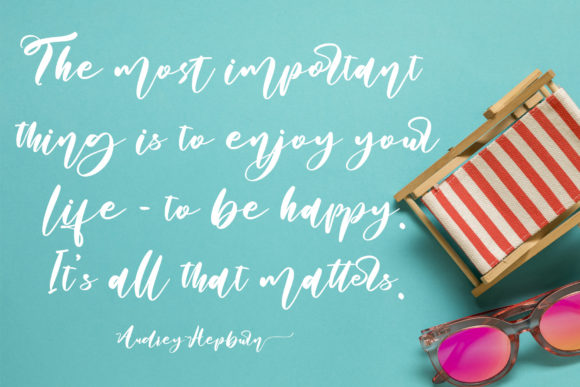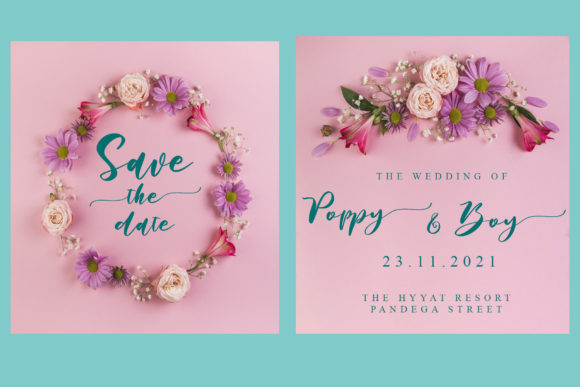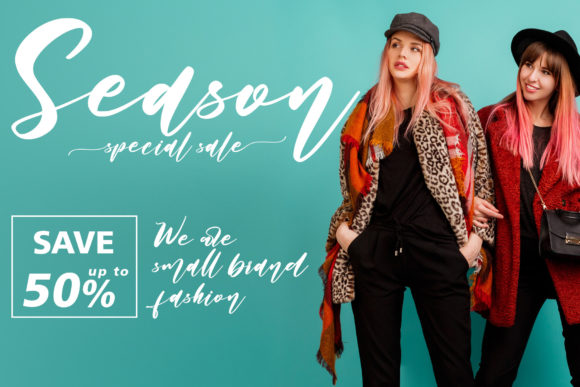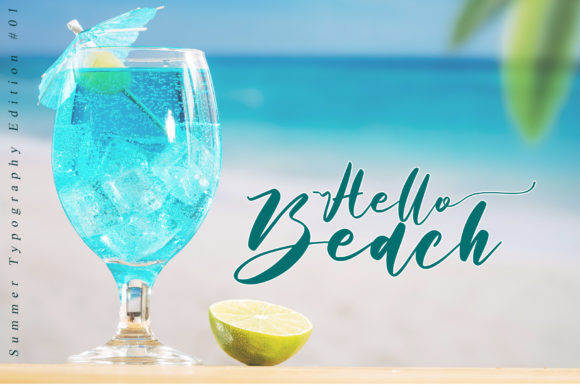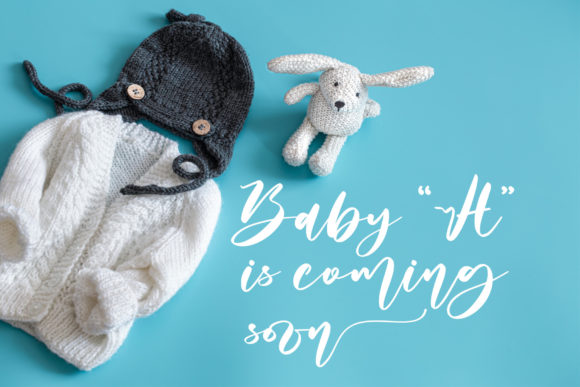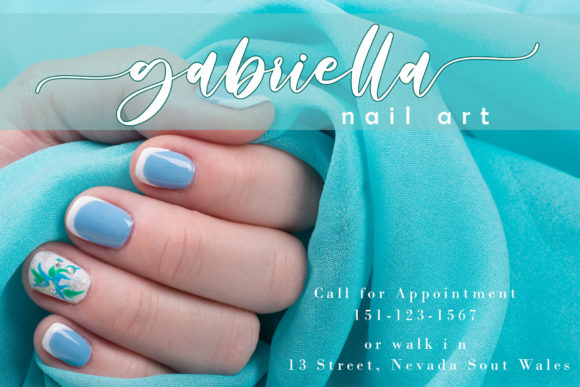
Introduction to Amanday Font
Amanday is a refined, all round, and cursive handwritten font.
It has beautiful and well-balanced characters and as a result, it matches a wide pool of designs This font is PUA encoded which means you can access all of the glyphs and swashes with ease.